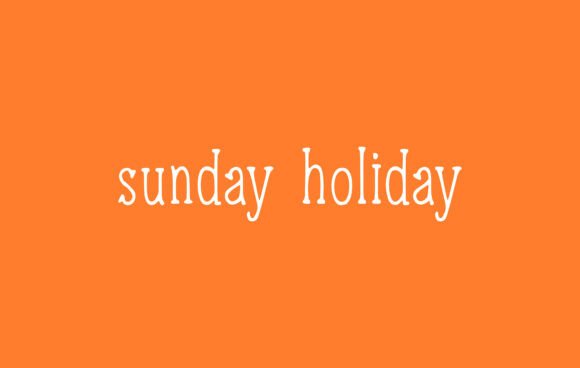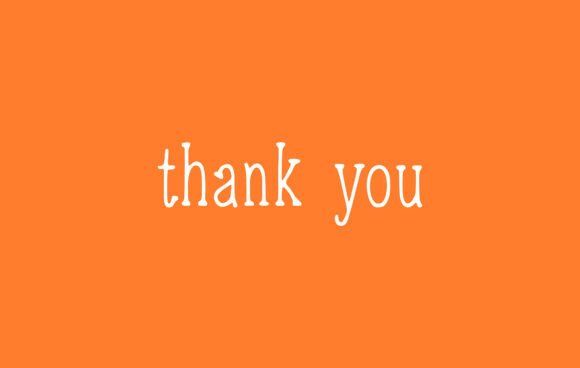
The Avayah Font: A Romantic, Handwritten Gem for Creative Projects
I’ll never forget the design struggle I faced while working on a wedding invitation project. My client wanted a font that was elegant, yet playful; romantic, yet legible. I scoured the internet, tried countless fonts, but nothing seemed to fit the bill. That’s when I stumbled upon the Avayah font. It was love at first sight! 💕
Avayah font is an authentic handwritten font with a romantic touch, expertly designed to capture the essence of creative expression. Its unique charm and versatility have made it a favorite among designers, crafters, and creative hobbyists.
Here’s what I love about Avayah font:
- ✨ Legibility: Avayah font is incredibly easy to read, making it perfect for both title and body text.
- ✅ Versatility: Its romantic touch and handwritten feel make it suitable for a wide range of design projects, from magazine headlines to wedding invitations.
- 💫 Aesthetic appeal: The font’s unique character and subtle imperfections give it a charming, organic feel that’s hard to find in digital fonts.
And, like any font, Avayah has a few minor quirks:
- 🤔 Limited use in small sizes: While Avayah is legible, it may not be the best choice for very small font sizes or body text in certain contexts.
- ⚠️ Occasional kerning issues: As with any font, you may encounter some kerning issues, especially when using it in combination with other fonts.
The Story Behind Avayah: Designer Inspiration
Avayah font was designed with love and care by a talented typographer who aimed to create a unique, handwritten font that captures the essence of romance and elegance. The designer’s inspiration came from traditional calligraphy and handwriting, blended with modern digital techniques.
Q: Is Avayah font suitable for body text?
While Avayah is legible, it’s primarily designed for title text and headings. For body text, you may want to choose a font with more traditional typography.